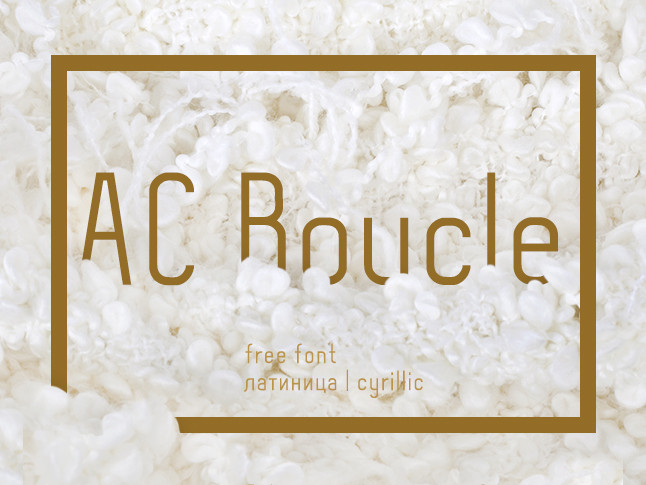
AC Boucle free font
AC-Boucle Font created for headlines and typesetting text. This Cyrillic font does not look like a “fence”, and curls in the loop as a cozy bouclé fabric.